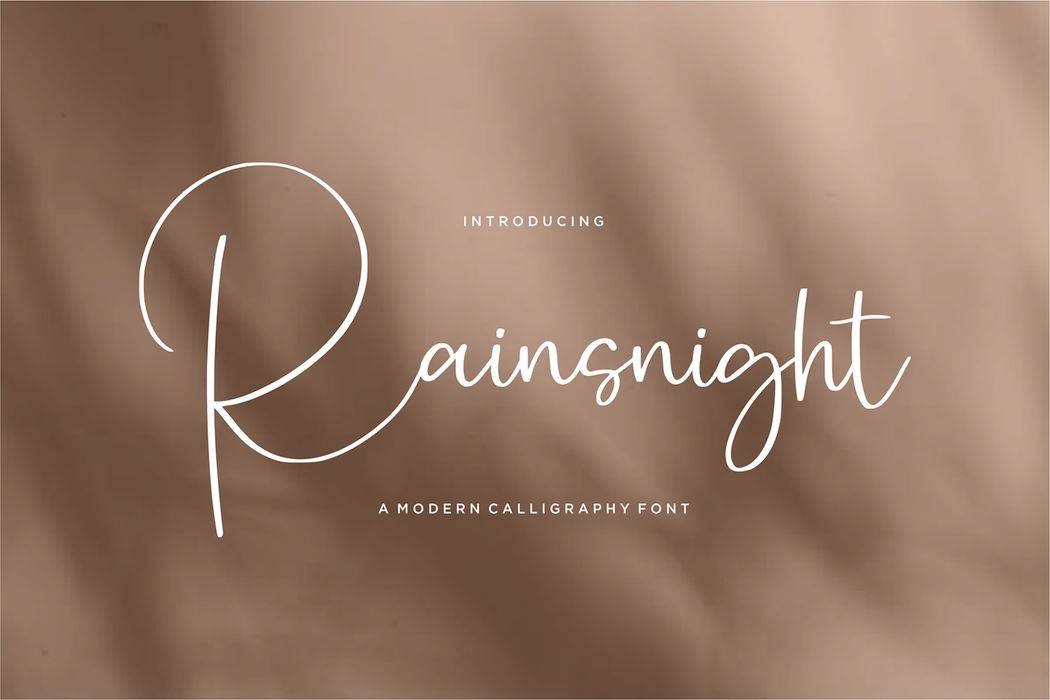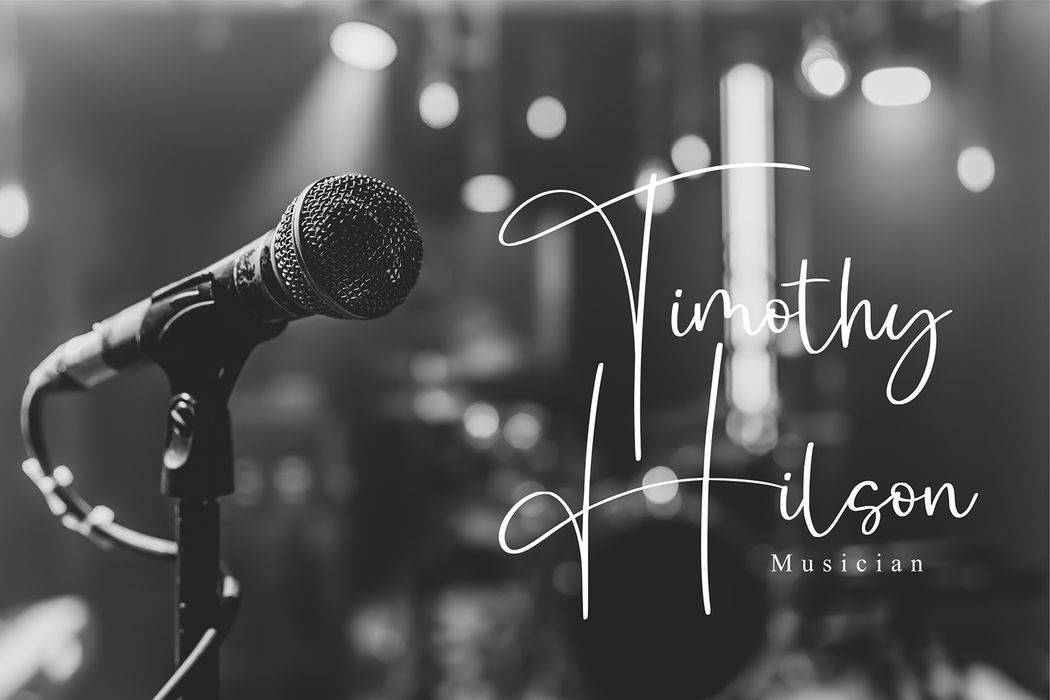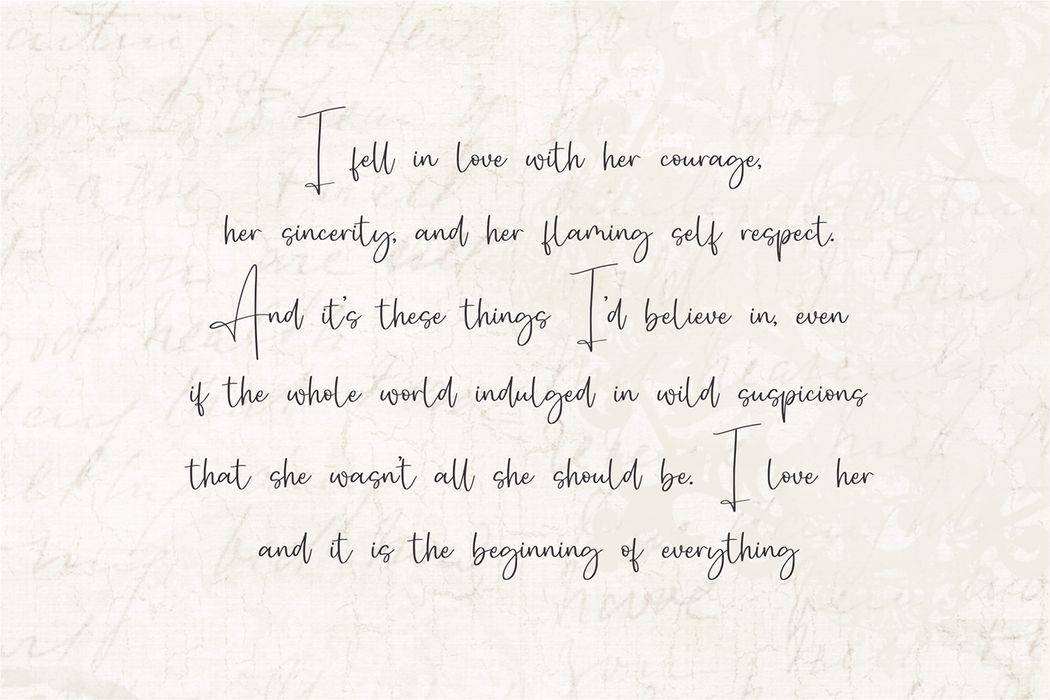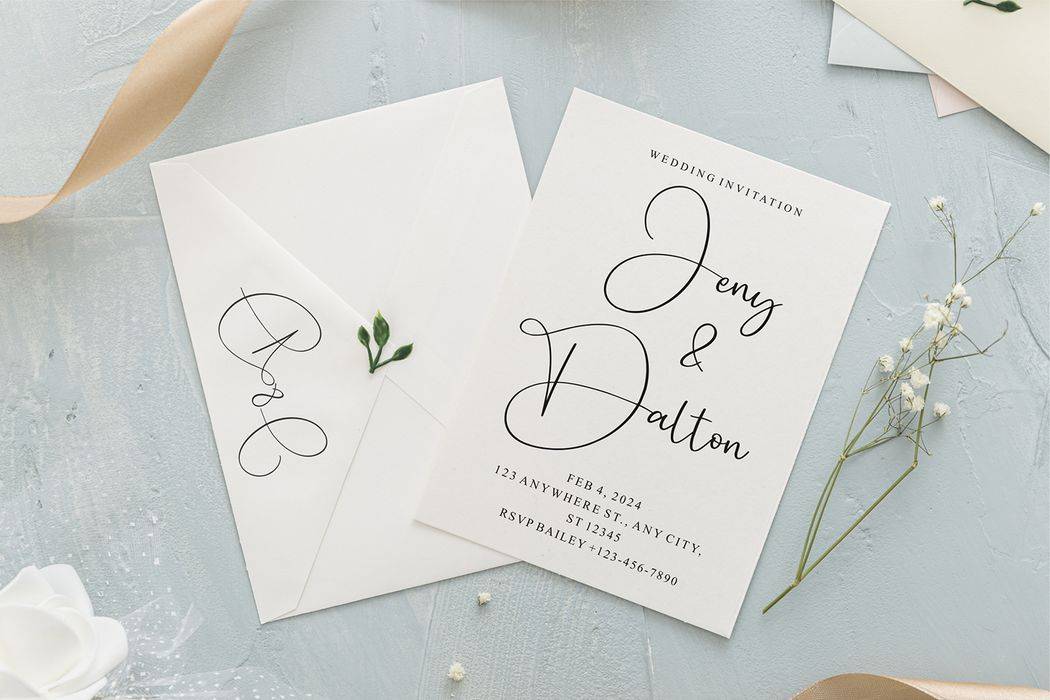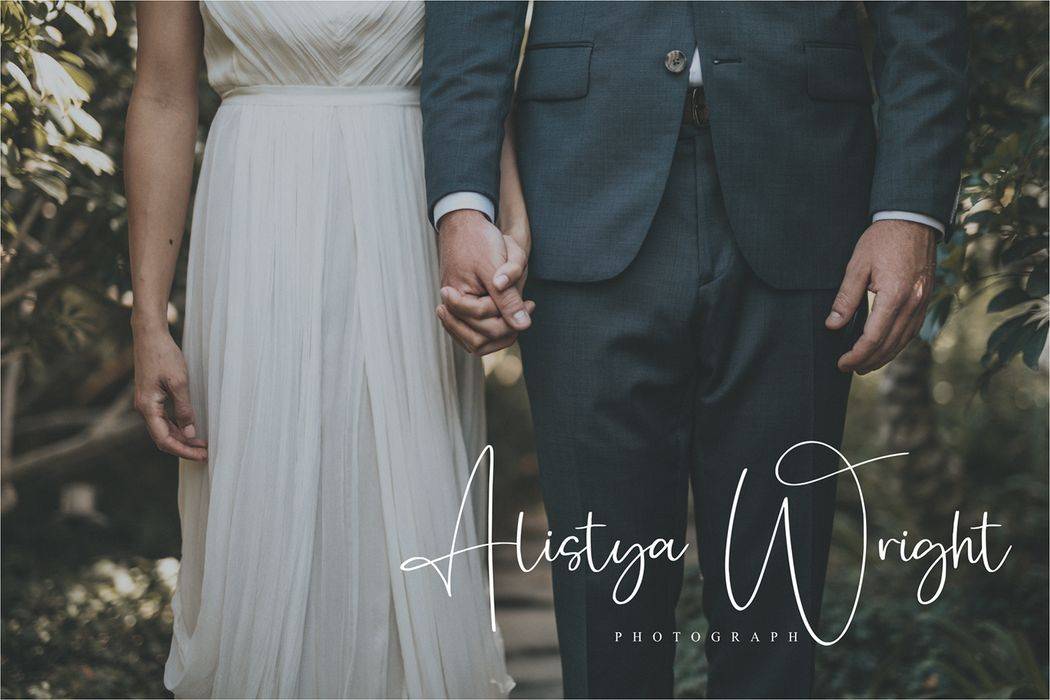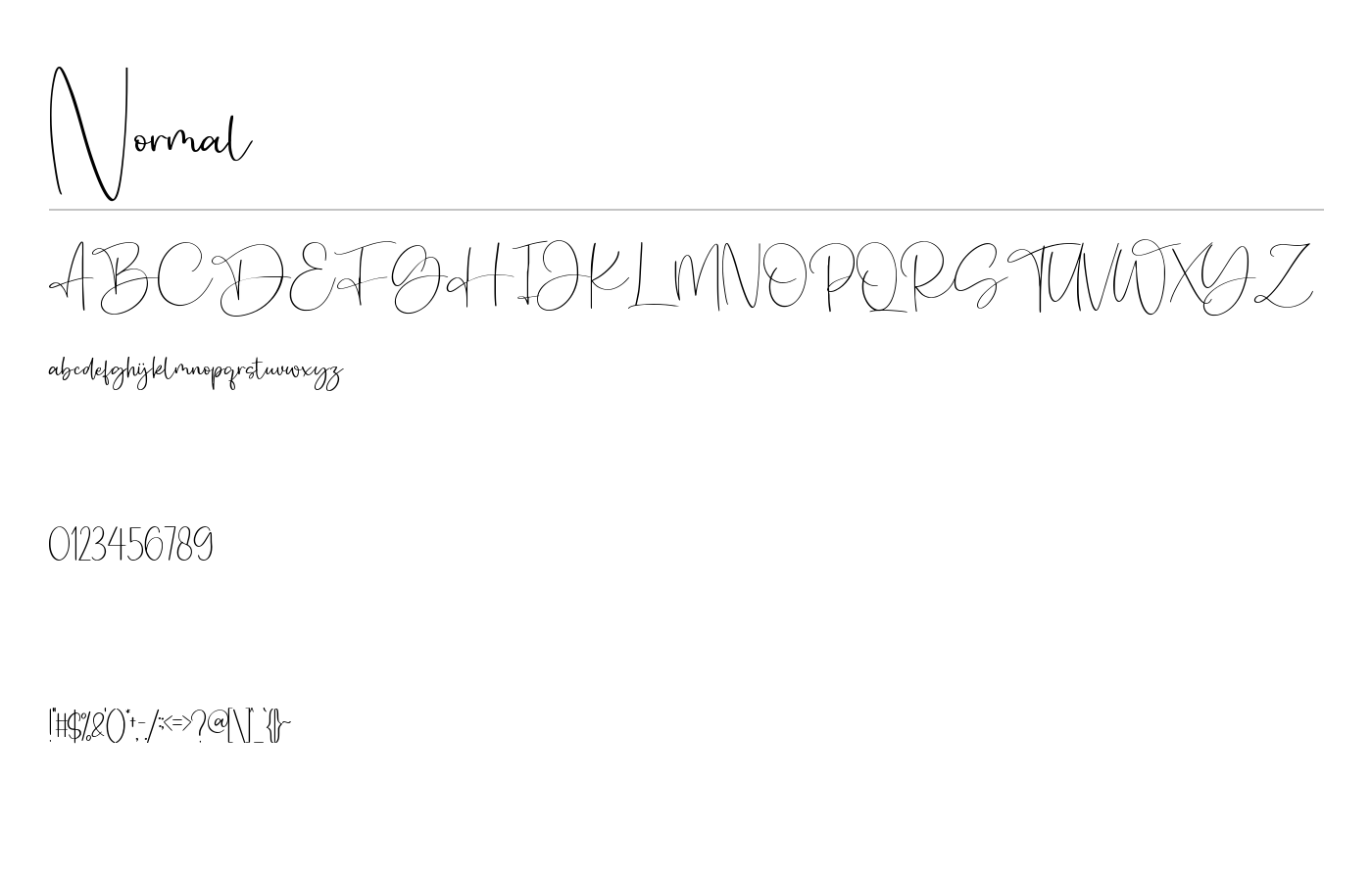
Rainsnight is a delicate, handwritten script font characterized by its tall, slender letterforms and fine, fluid strokes that convey an elegant, whimsical charm. Its airy spacing and playful curves make it perfect for adding a personal, artistic touch to invitations, branding, and creative projects where a light, sophisticated feel is desired. This font shines in applications that benefit from a graceful, handwritten style without sacrificing readability.
Rainsnight Font